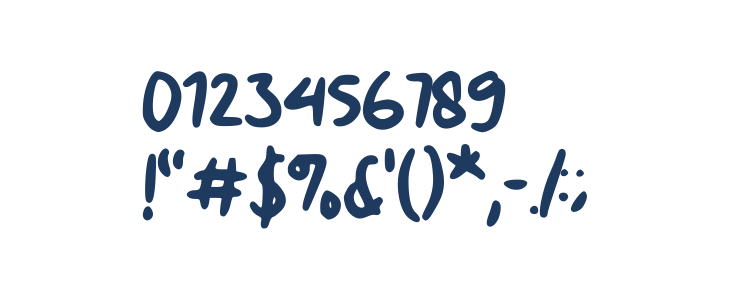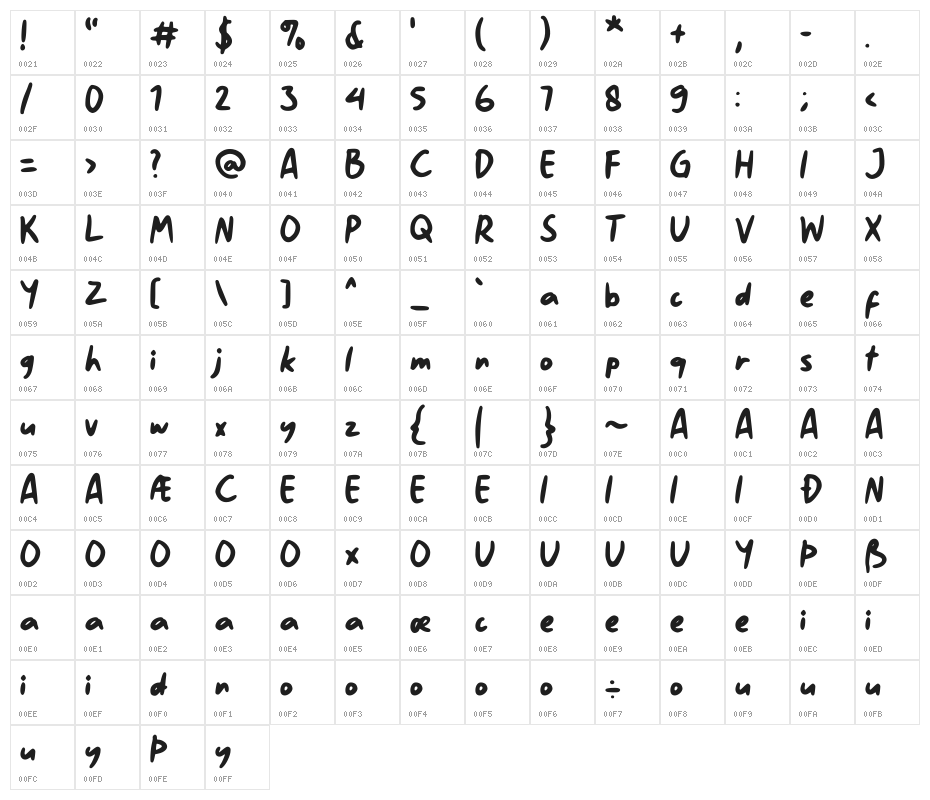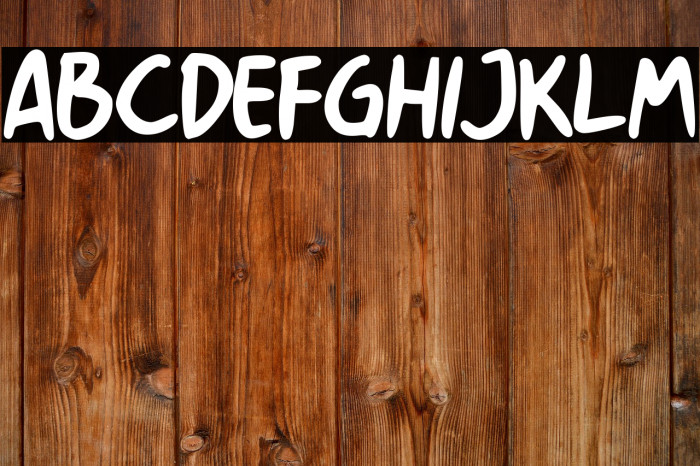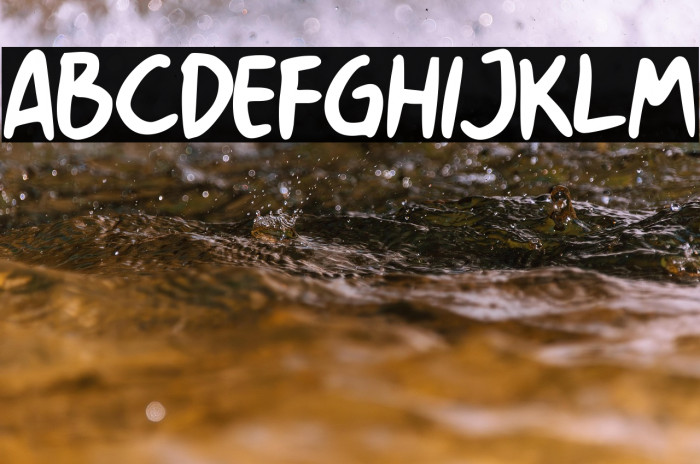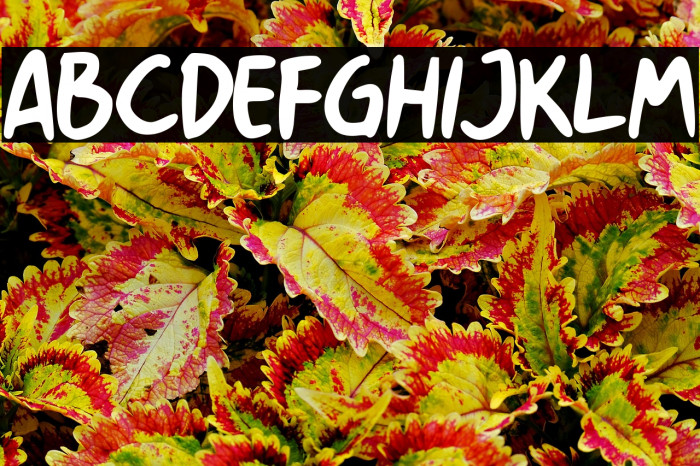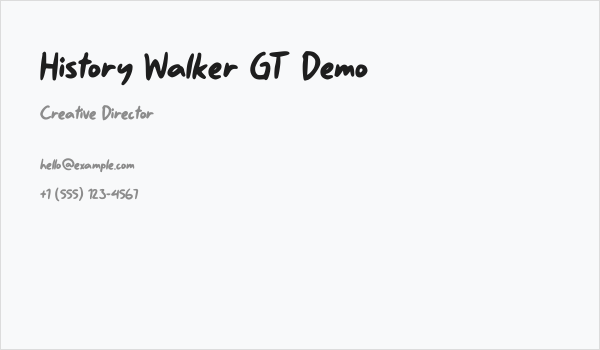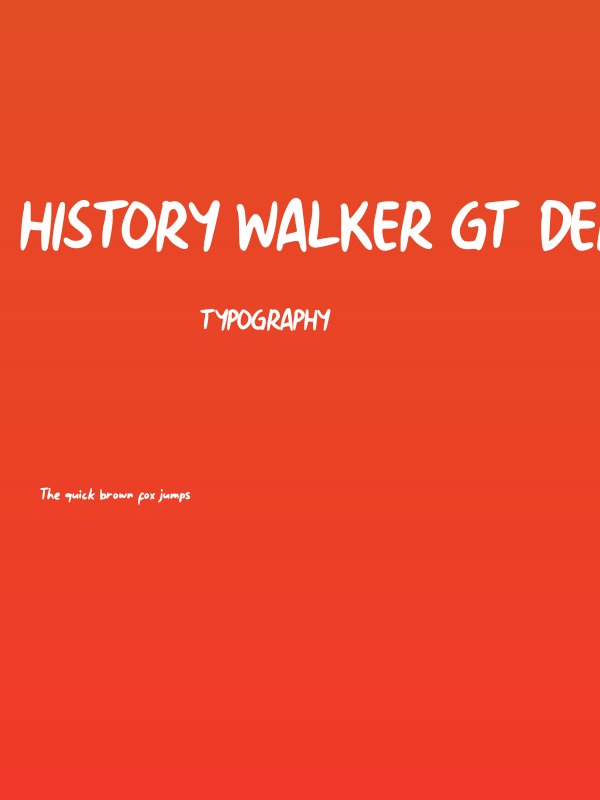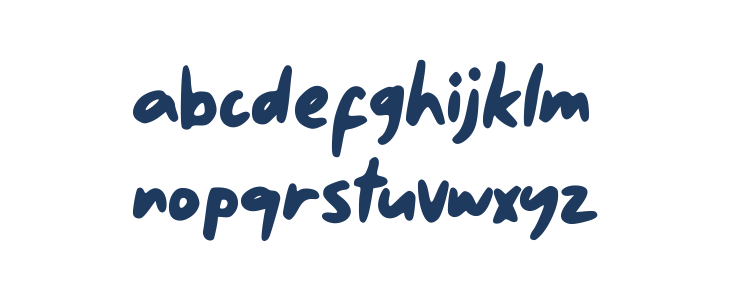
History Walker GT Demo Font
History Walker GT Demo Description
This font features a bold, handwritten style that exudes a casual and playful vibe. The characters are rounded and slightly irregular, giving them a natural, organic feel. The uppercase and lowercase letters are distinct, with a noticeable difference in size and shape. Numbers and special characters maintain the same playful aesthetic, making the font versatile for various uses. The strokes are consistent in thickness, contributing to a cohesive look across all characters. This font is ideal for projects that require a personal touch, such as greeting cards, invitations, or creative branding.
Overall StyleCasual, Playful
Use CaseHeadlines, Logos, Informal text
Proposed ProjectsGreeting cards, invitations, creative branding, children's books, casual posters.